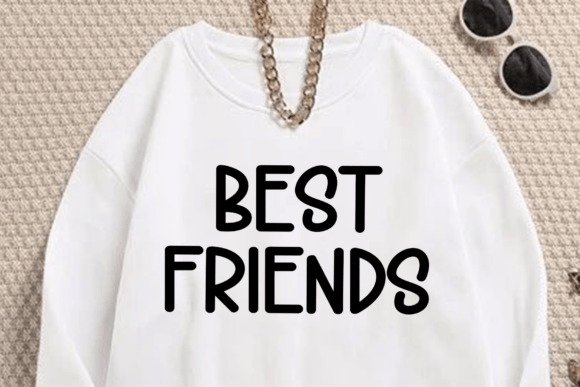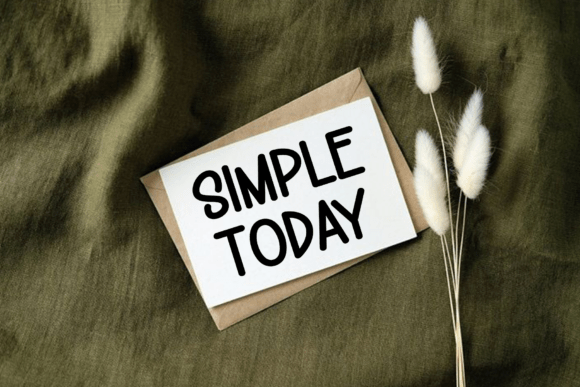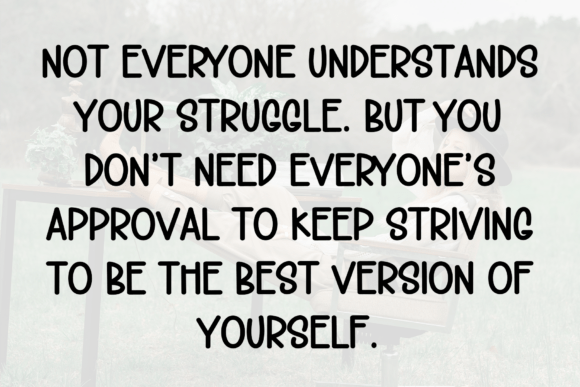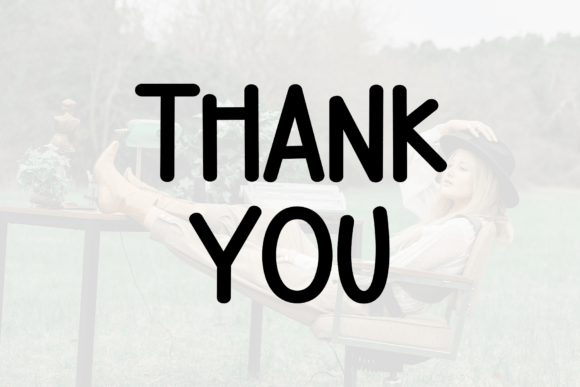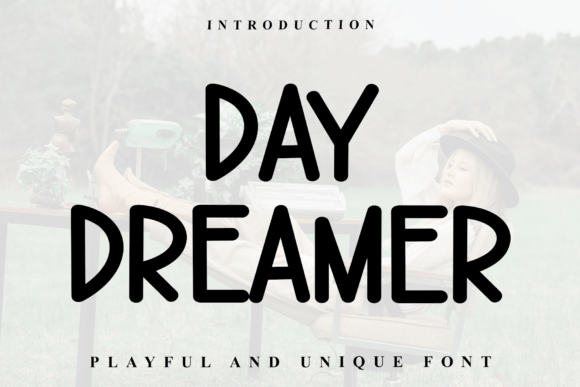
Introducing Day Dreamer Font: The Perfect Blend of Modern Simplicity and Playful Charm
In the world of typography, fonts play a crucial role in conveying the tone and personality of a design. For designers and crafters looking for a font that embodies a casual, yet stylish vibe, Day Dreamer Font is an excellent choice. This article will explore the features, benefits, and uses of Day Dreamer Font, and why it’s becoming a favorite among designers.
What is Day Dreamer Font?
Day Dreamer Font is a casual display font that seamlessly blends modern simplicity with a playful, approachable charm. Its clean shapes, soft edges, and well-balanced letterforms make it an ideal choice for a wide range of design projects. Whether you’re working on posters, branding, packaging, or social media graphics, Day Dreamer Font adds a fresh and friendly touch that captures the essence of relaxed design while maintaining clarity and style.
Key Features of Day Dreamer Font
- Clean Shapes: Day Dreamer Font features clean, geometric shapes that provide a modern and sleek appearance. These shapes ensure that the font remains legible and stylish, even at larger sizes.
- Soft Edges: The soft edges of Day Dreamer Font give it a friendly and approachable feel. This subtle detail sets it apart from more rigid fonts and adds a layer of warmth to your designs.
- Well-Balanced Letterforms: Each letterform in Day Dreamer Font is carefully crafted to be well-balanced, ensuring that the font flows smoothly and reads easily. This balance is crucial for maintaining readability and visual appeal.
- Versatile Character: Day Dreamer Font has a versatile character that makes it suitable for a variety of design projects. Its unique blend of modern simplicity and playful charm allows it to adapt to different contexts and themes.
- Eye-Catching Appeal: The font’s design ensures that it grabs attention without being overpowering. Its eye-catching appeal makes it perfect for headlines, titles, and any text that needs to stand out.
Benefits of Using Day Dreamer Font
Using Day Dreamer Font in your design projects offers several benefits:
- Enhanced Readability: The clean and well-balanced design of Day Dreamer Font ensures that your text is easy to read, even at smaller sizes. This is particularly important for body text and captions.
- Unique Personality: Day Dreamer Font brings a unique personality to your designs, setting them apart from more generic fonts. Its playful charm and modern simplicity make it an excellent choice for brands looking to establish a friendly and approachable image.
- Versatility: This font is incredibly versatile, making it suitable for a wide range of design projects. From posters and flyers to social media graphics and packaging, Day Dreamer Font can be used in various contexts.
- Time-Saving: With Day Dreamer Font, you can achieve professional-looking results without spending hours on custom typography. Its ready-to-use design saves you time and effort, allowing you to focus on other aspects of your project.
Uses of Day Dreamer Font
Day Dreamer Font is ideal for a variety of design projects, including:
- Posters: Create eye-catching posters for events, promotions, or informational campaigns. The font’s bold and playful design ensures that your message stands out.
- Branding: Establish a strong brand identity with Day Dreamer Font. Its friendly and approachable vibe makes it perfect for brands looking to connect with their audience on a personal level.
- Packaging: Add a touch of personality to your product packaging with Day Dreamer Font. Its modern simplicity and playful charm make it an excellent choice for product labels, packaging inserts, and more.
- Social Media Graphics: Enhance your social media presence with engaging graphics that feature Day Dreamer Font. Whether you’re creating Instagram posts, Facebook graphics, or Twitter headers, this font adds a fresh and friendly touch.
Day Dreamer Font is a versatile and stylish casual display font that offers the perfect blend of modern simplicity and playful charm. Its clean shapes, soft edges, and well-balanced letterforms make it an excellent choice for a wide range of design projects. With its eye-catching appeal and readability, Day Dreamer Font is ideal for designers and crafters looking to add a fresh and friendly touch to their work. Whether you’re working on posters, branding, packaging, or social media graphics, Day Dreamer Font delivers both style and personality.
So, why settle for generic fonts when you can add a touch of personality to your designs? Explore the possibilities of Day Dreamer Font and elevate your typography to new heights.